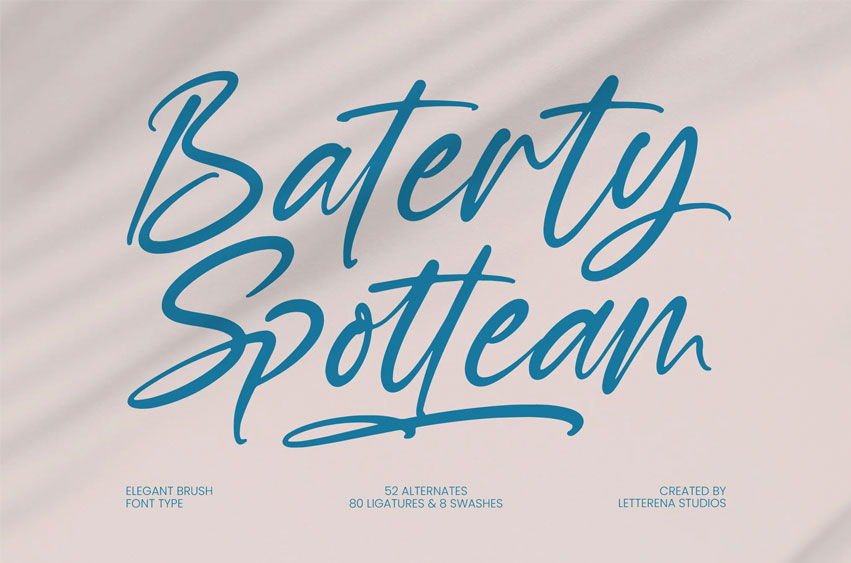
Baterty Spotteam Font is suitable to complement your digital and printed creative products. This font is perfect for posters, social media posts, branding, personal projects, etc.